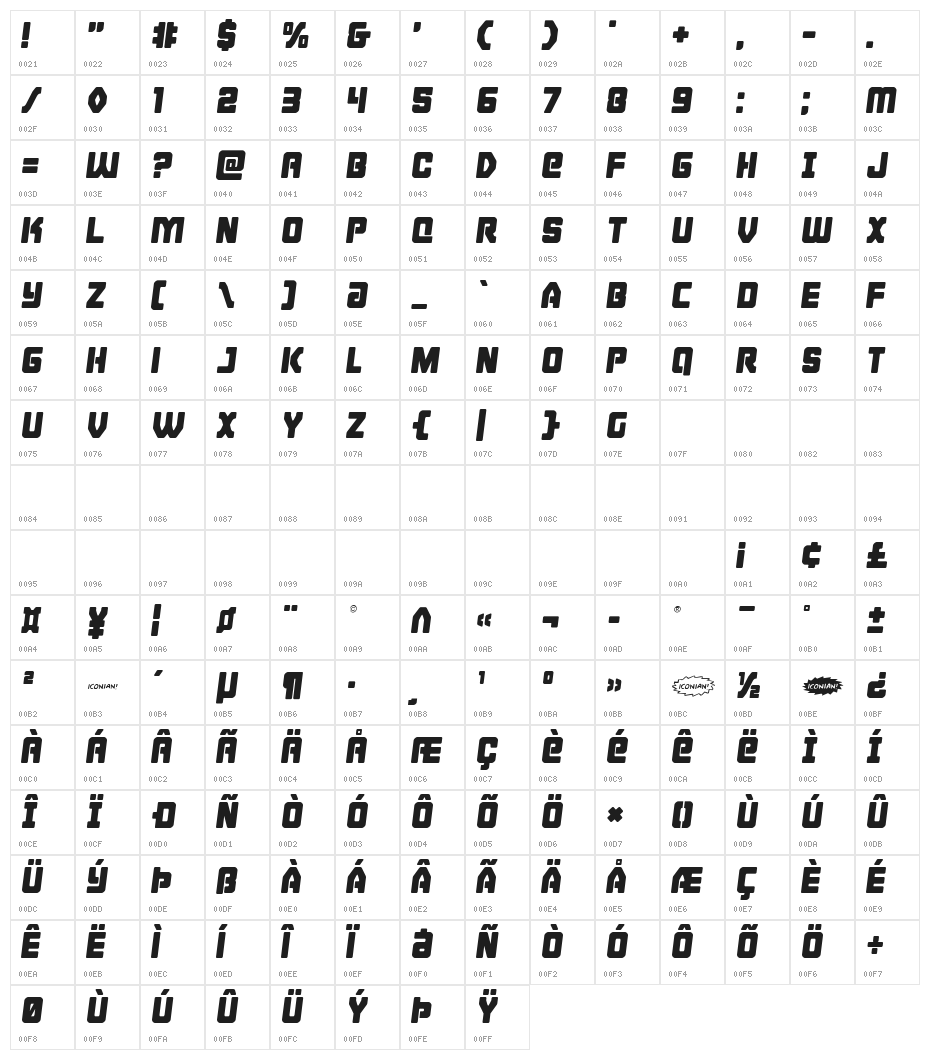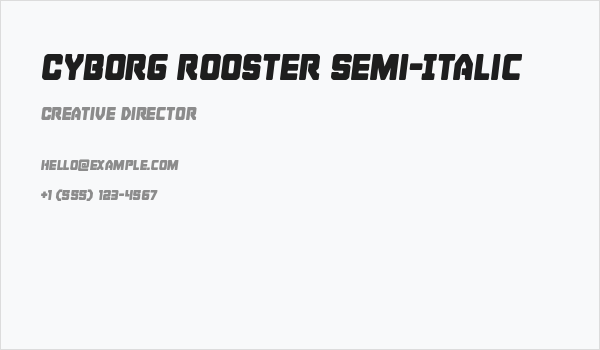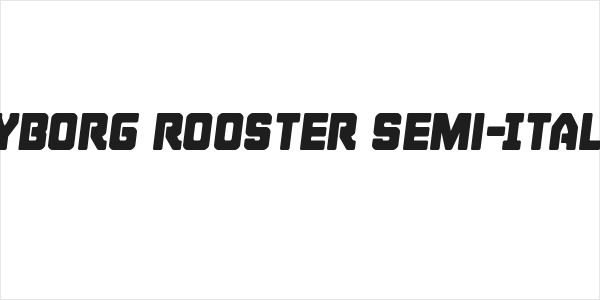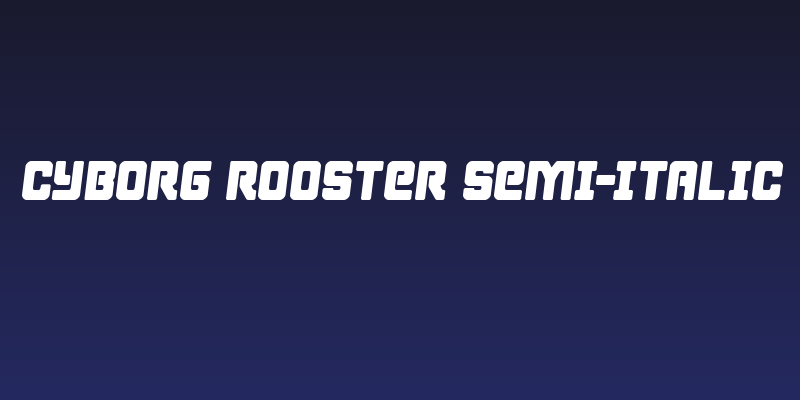
Cyborg Rooster Semi-Italic Font
Cyborg Rooster Semi-Italic Description
This font features a bold and futuristic design with a semi-italic slant, giving it a dynamic and forward-moving appearance. The characters are robust and angular, with a distinct geometric influence that adds a modern edge. The uppercase and lowercase letters maintain a consistent style, ensuring readability while offering a unique aesthetic. The numbers and special characters are designed to match the boldness and angularity of the alphabet, making them suitable for various applications. The overall style is both eye-catching and functional, ideal for projects that require a strong visual impact.
| Proposed Projects | Ideal for technology branding, video game titles, futuristic posters, and sci-fi themed designs. |